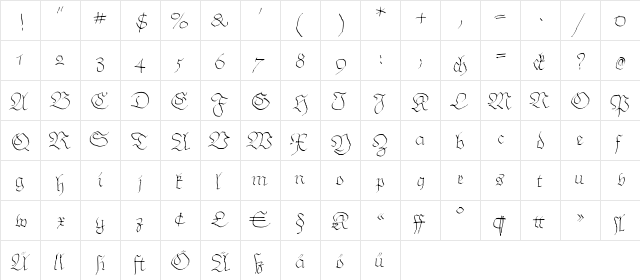
ArthritishSpringtime Regular
Design Context for ArthritishSpringtime Typeface
ArthritishSpringtime is a composed and adaptable typeface that performs quietly and consistently across a wide range of design contexts.